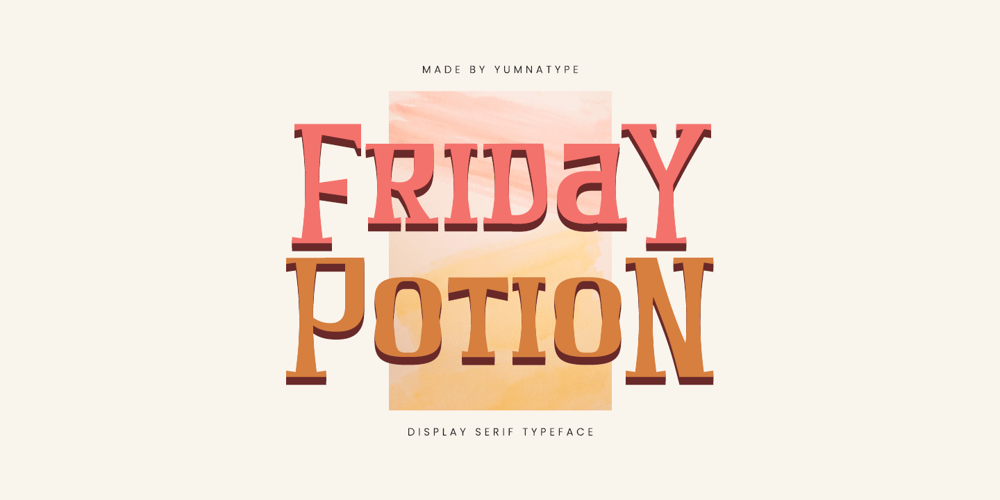
Friday Potion Font Family was designed by Donis Miftahudin and published by Yumna Type. Friday Potion contains 1 styles and family package options. Friday Poison is a captivating serif display font that brings a unique blend of elegance and edginess to your designs. Each letter in Friday Poison is meticulously designed with a square shape that adds a touch of structure to your text. The thin weight of the font adds a delicate eleganceOn the other side, a non-straight outline adds a sense of unpredictability and intrigue. What sets Friday Poison apart is its ability to command attention with its bold yet refined appearance. In addition, enjoy the features here.Features: Multilingual Supports PUA Encoded Numerals and Punctuations Friday Poison fits in headlines, logos, posters, flyers, branding materials, print media, editorial layouts, and many more designs. Find out more ways to use this font by taking a look at the font preview.Thanks for purchasing our fonts. Hopefully, you have a great time using our font. Feel free to contact us anytime for further information or when you have trouble with the font. Thanks a lot and happy designing.